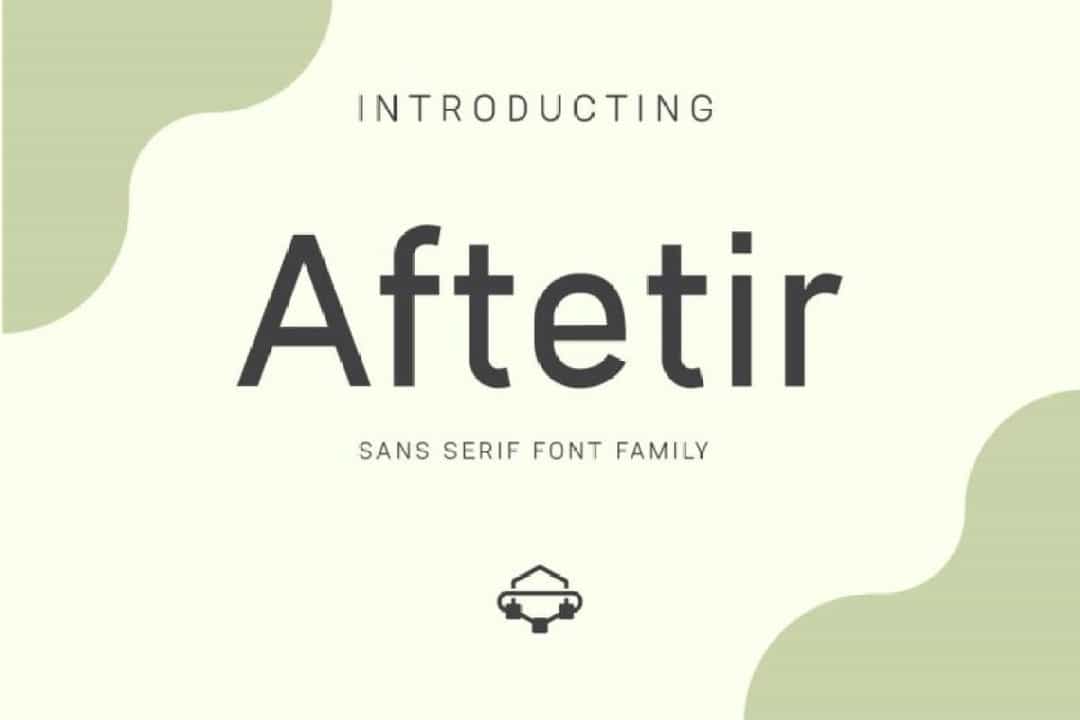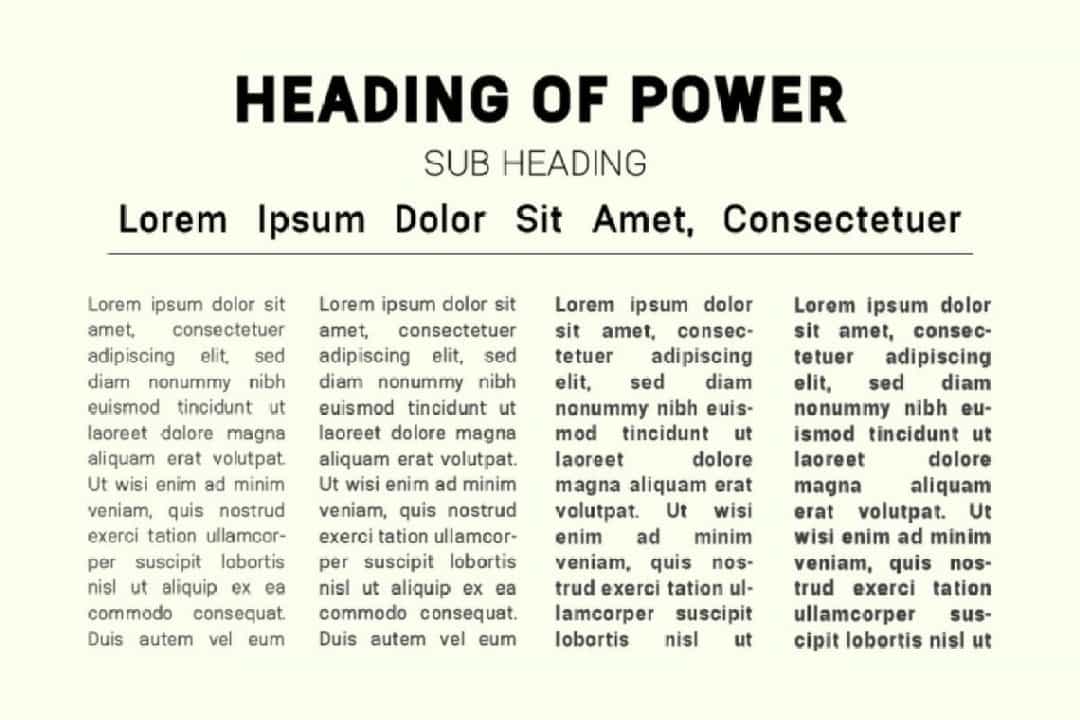
Discover Aftetir Font, part of the Sans Serif Basic Personal collection—a versatile and unique font perfect for adding a personal touch to your projects. Download it for free and enjoy crafting designs with style, from invitations to social media posts. This font is available exclusively for personal use, giving you the freedom to create without limits. Unlock your creativity with Aftetir Font today!
It is a sans serif typeface that is simple and can be used for immediate noticing, as well as in official documents. Attention was paid in the development of Aftetiri to ensure that it could be one of the most popular fonts in the near future! What makes Aftetiri capable of actualizing all your ideas is that it has what it takes to do so!